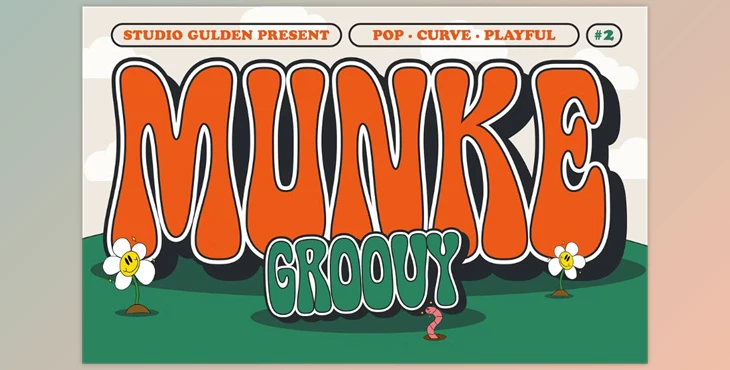
SG - MUNKE Groovy Display Font Creative Market - 7322806:
SG - Munke is a versatile display font featuring a groovy, curvy base shape. It is ideal for creating both vintage and modern pop designs. The font includes multilingual support and offers both uppercase and lowercase letters.